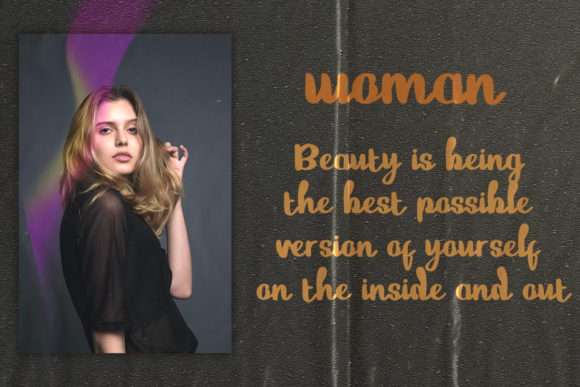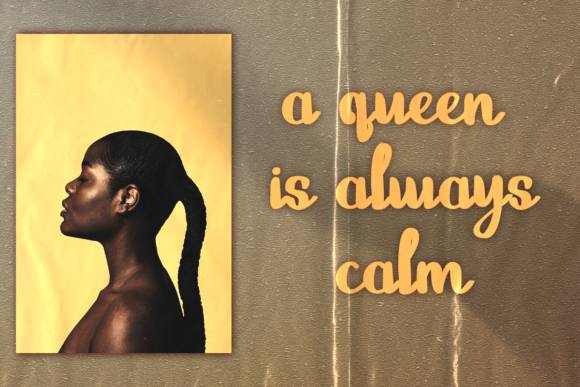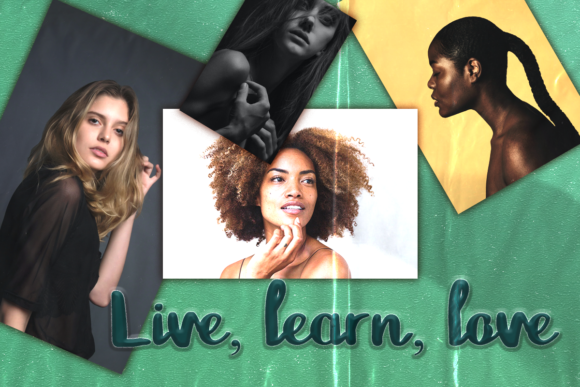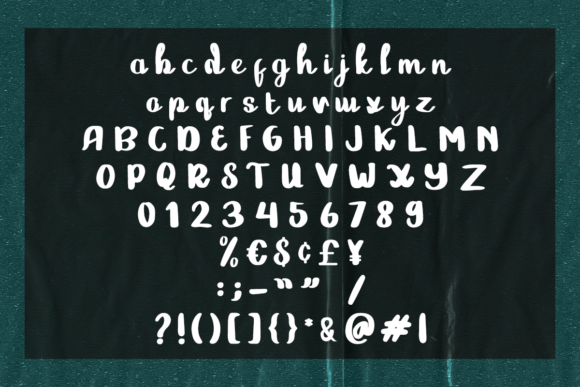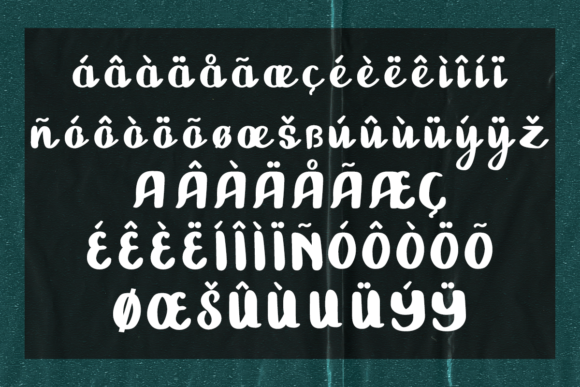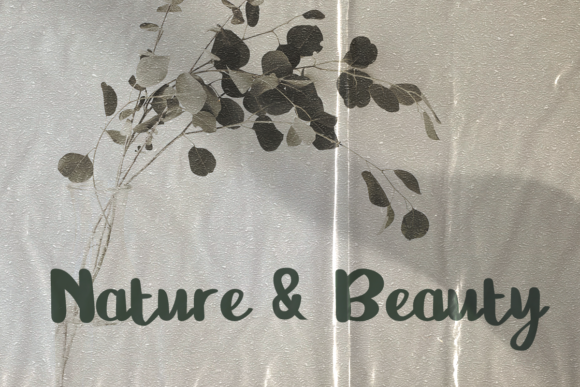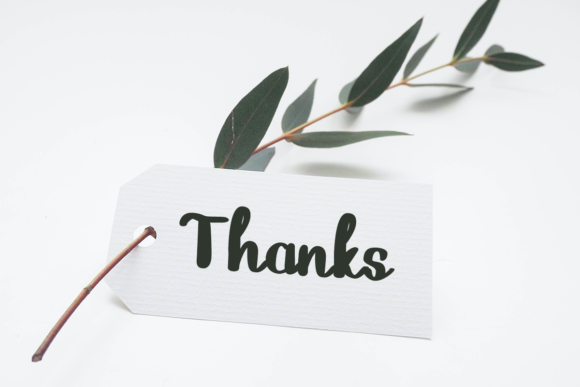
Sandralia Font
About Sandralia Font
Sandralia is a cute and quirky handwritten font. It will add an incredibly joyful touch to your designs. Add this beautiful handwritten font to each of your creative ideas and notice how it makes them stand out!